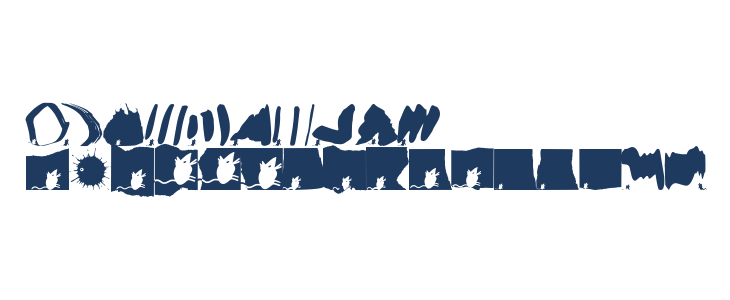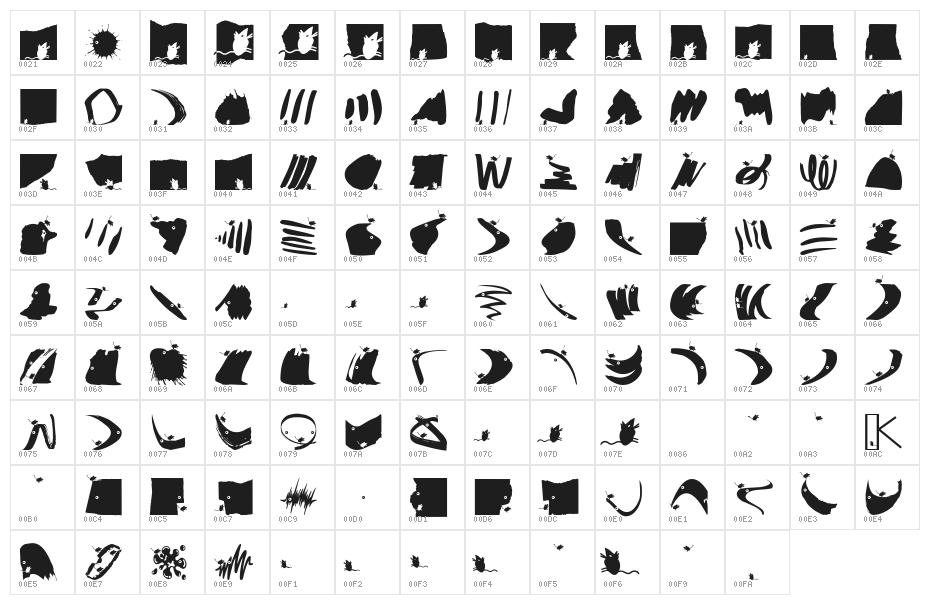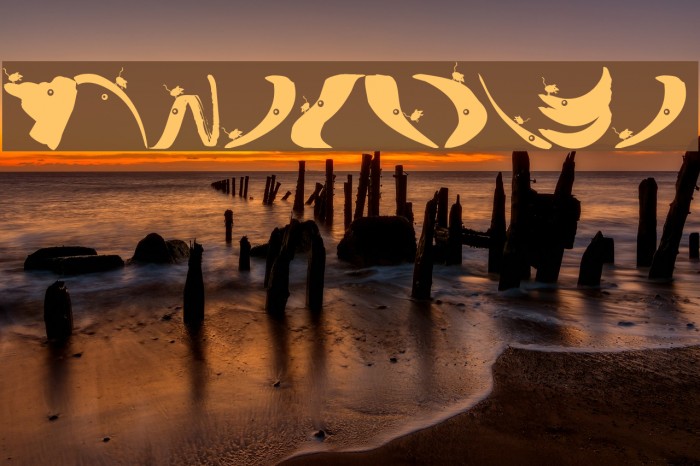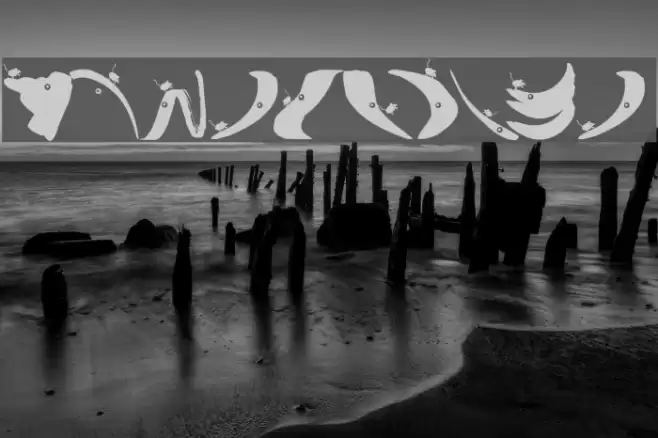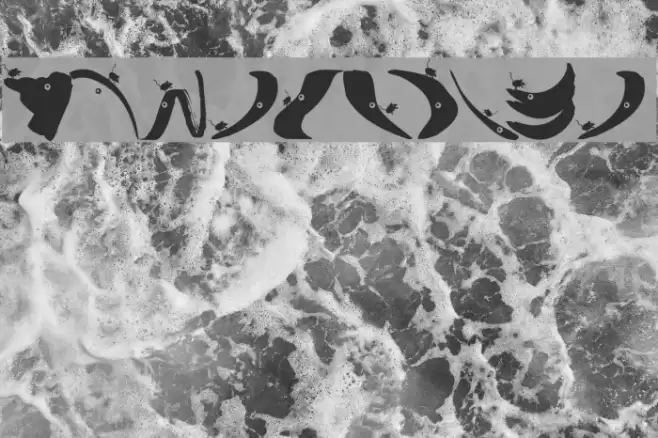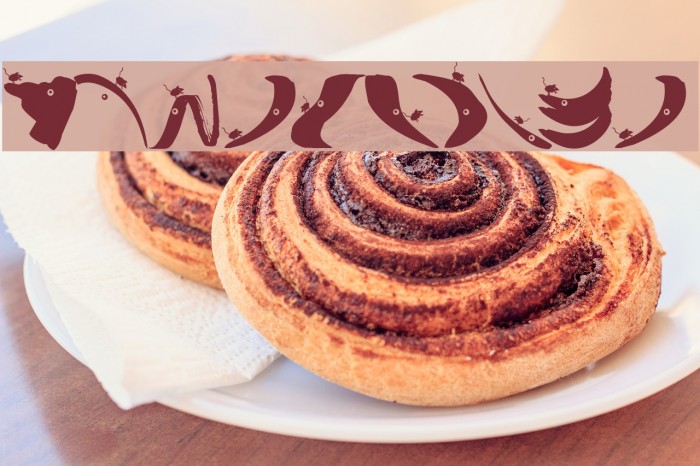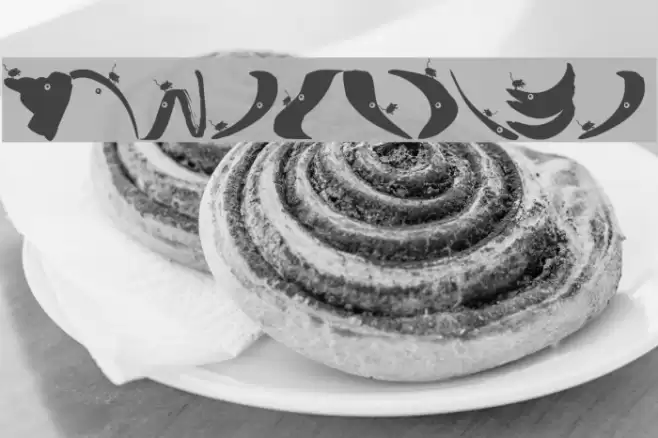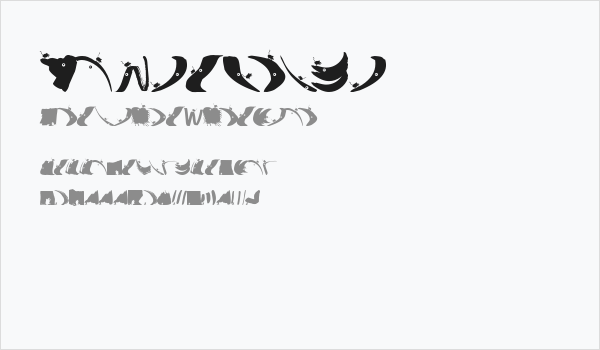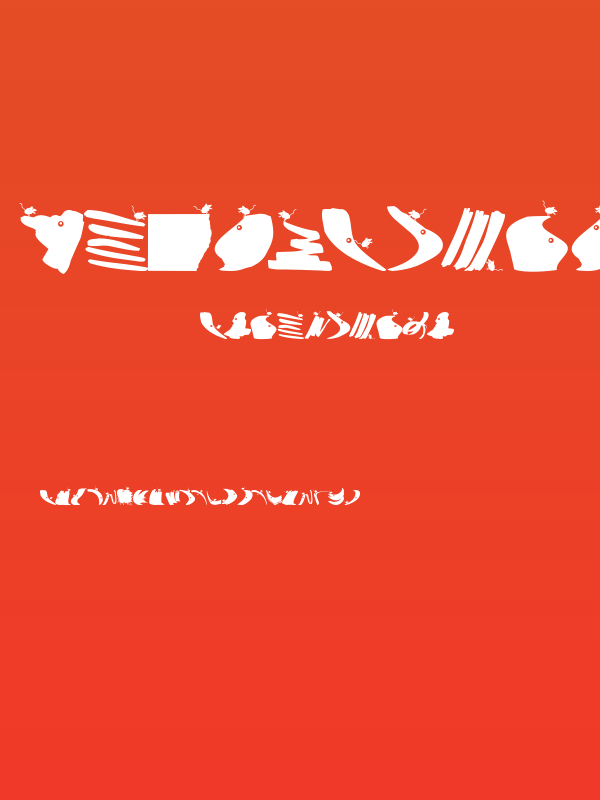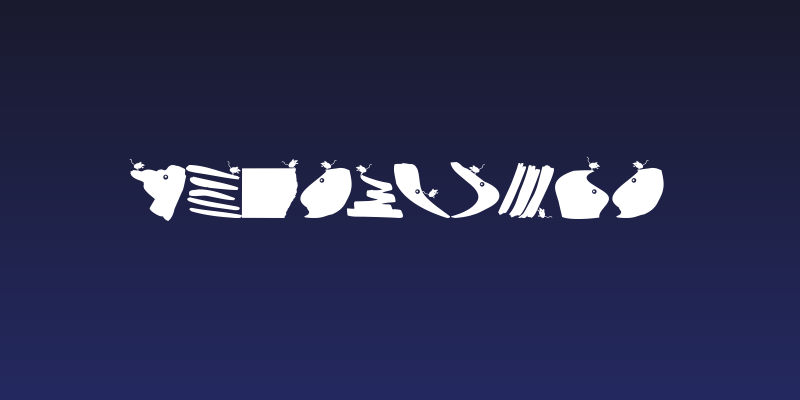
MouseTraps Font
MouseTraps Description
This font features a highly decorative and abstract style, incorporating elements that resemble splatters or brush strokes, giving it a chaotic and dynamic appearance. Each character is uniquely designed with varying thickness and irregular shapes, creating a sense of movement and energy. The font includes uppercase and lowercase letters, numbers, and a selection of special characters, all maintaining the same artistic theme. The overall design is bold and eye-catching, making it suitable for creative and unconventional projects.